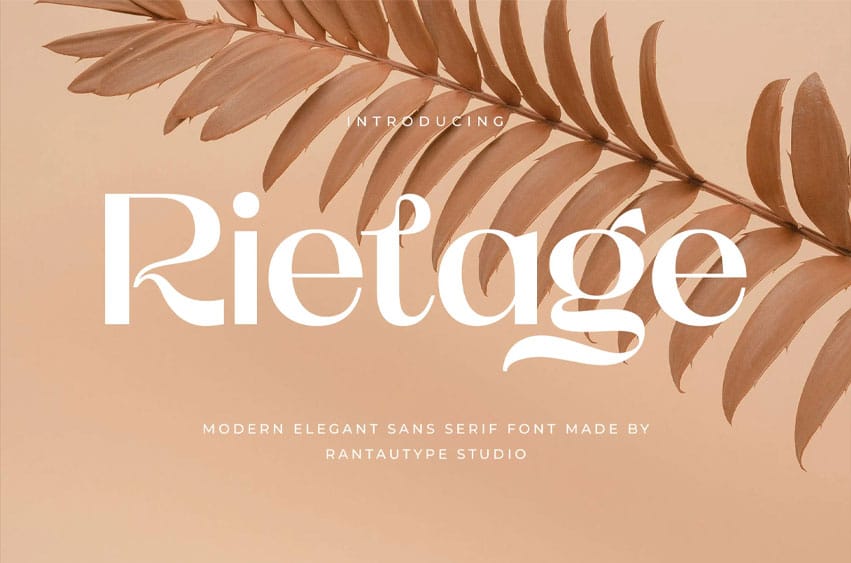
Rietage Font is a modern sans serif font that embraces grace and fashion. Rietage comes with a memorable curve to make your design project stand out. Rietage is a perfect choice for any creative endeavor, chic lifestyle design such as logotype, advertisements, watermark on photography, stationery, branding project, display and magazine, invitation, corporate brand, product design, label, business project, and many other projects with a modern touch.